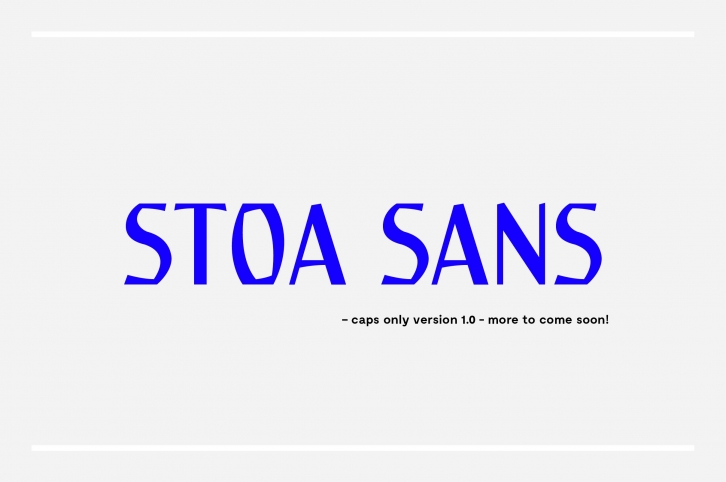
Stoa Sans 1.0 is the first version of this clean and minimalist display typeface.
Inspired by stone wall engravings and stoic philosophy this typeface provides a modern approach to historic typeface designs.
Try Stoa Sans for:
• Branding
• Unique web design
• Instagram posts
• Signs
• Posters
• Apparel designs
• Headlines
• Editorials & more